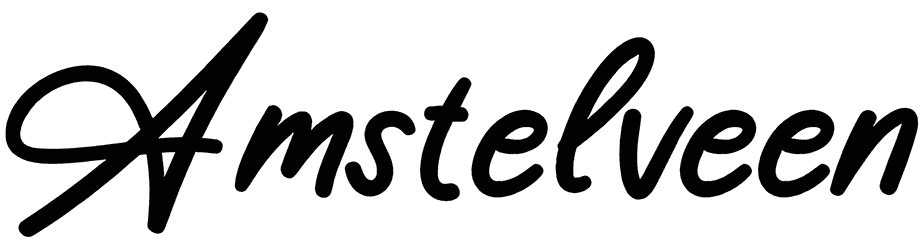
Amstelveen Font
You can tie a natural handwritten font like the present item to any modern or classic design and leave a lasting impact on your followers. The cursive and minimal visual of this postcard font will make your intended design soft and delightful. You can count on the Amstelveen font for a drama movie poster, or whatnot, to make them memorable.